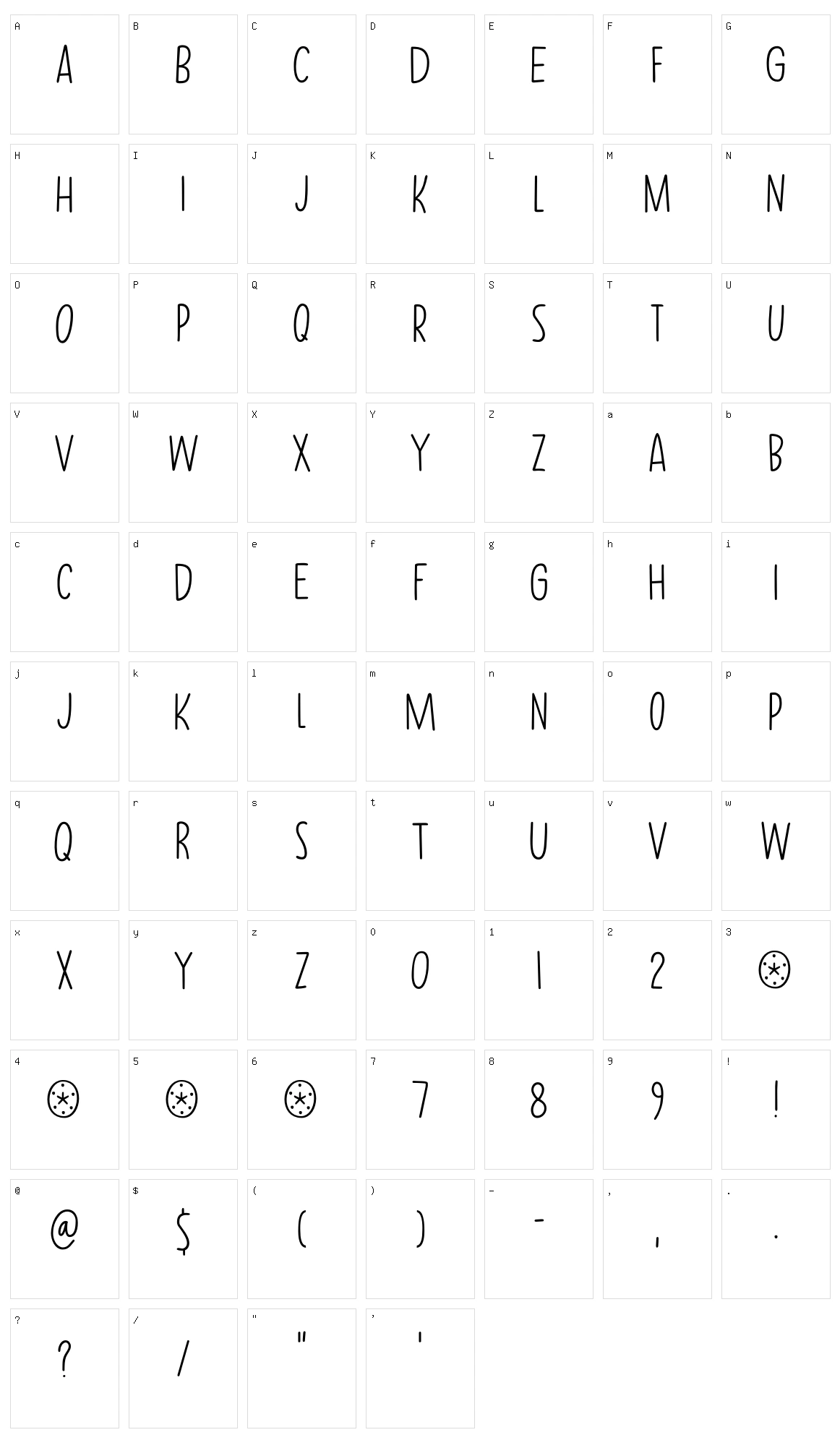
The free font Modern Fantasy is carefully designed by Hanoded, showcasing a thoughtful balance of creativity and usability and falls under the Script font style. When you download the ZIP file, it contains only 1273.56 KB of font files, making it lightweight and quick to download. Please review the license details below to understand permitted usage and distribution rights. If license information is not available, we recommend using this font for personal projects only or contacting the author directly for commercial usage permissions.